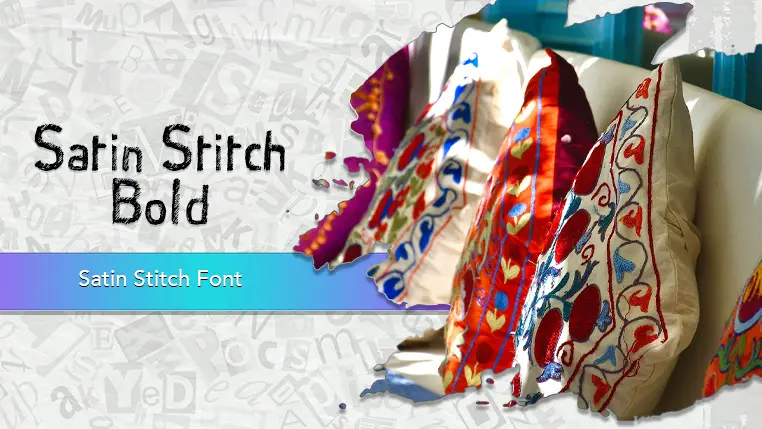
The Satin Stitch font family may be ideal for you if you enjoy working on an artistic design project. The lively, expressive look of this typeface, which was created by HaleysComet, makes it ideal for Use on Monogramming towels, blankets, robes, baby items (bibs, onesies), or apparel, Adding names, initials, or small designs to t-shirts, caps, bags, jackets, or uniforms. Embroidering cushions, napkins, tablecloths, or wall hangings, Adding decorative text or labels to quilts and other sewn items. and other light-hearted visual projects.
Bold are the one primary font styles of the Satin Stitch font family. You may build dynamic, visually appealing text layouts with the distinct flair that each style offers. With crisp, readable lines and a relaxed tone.